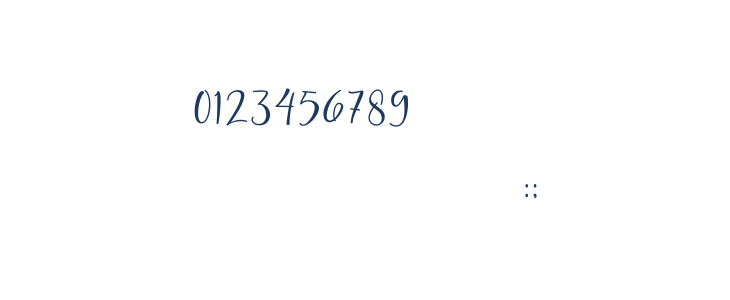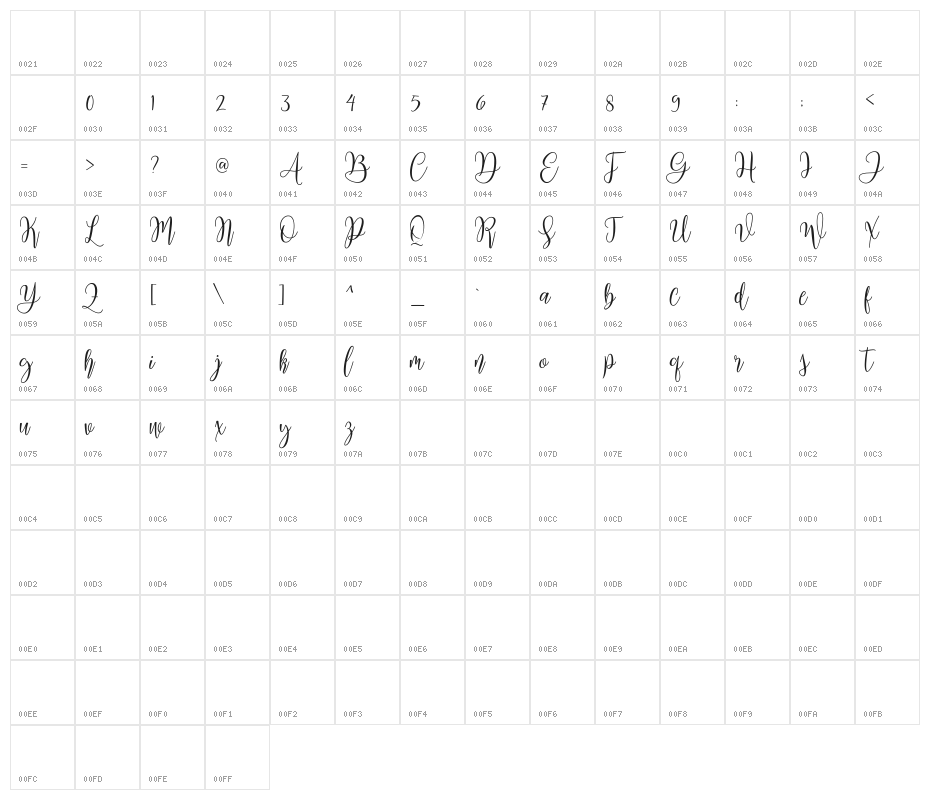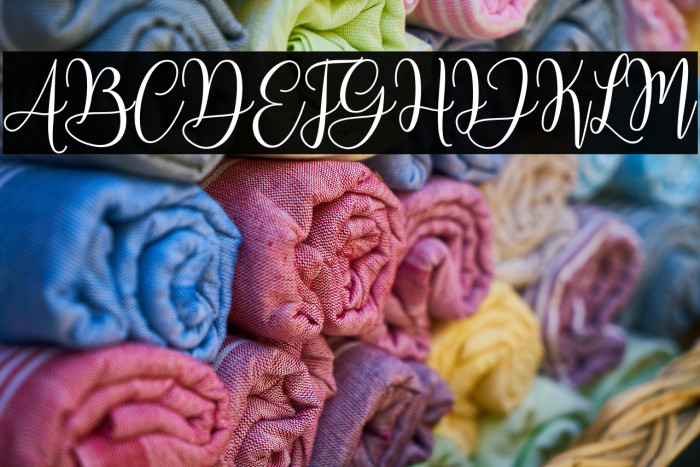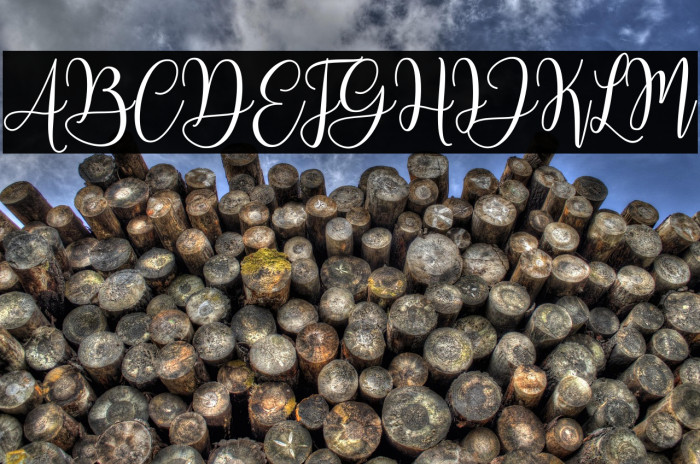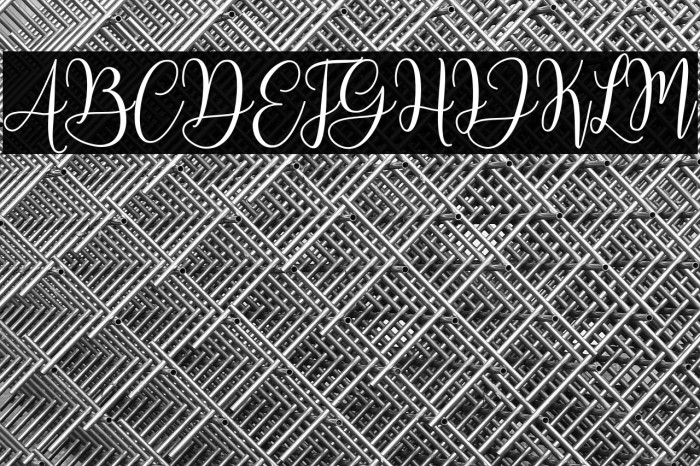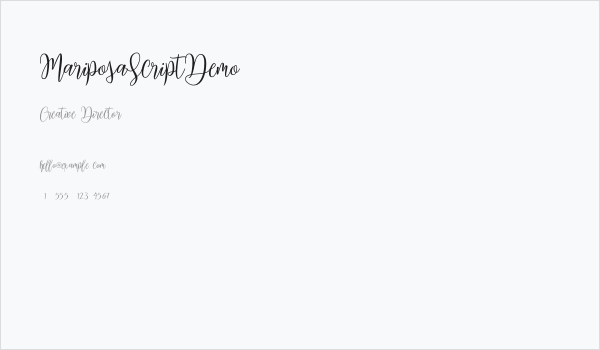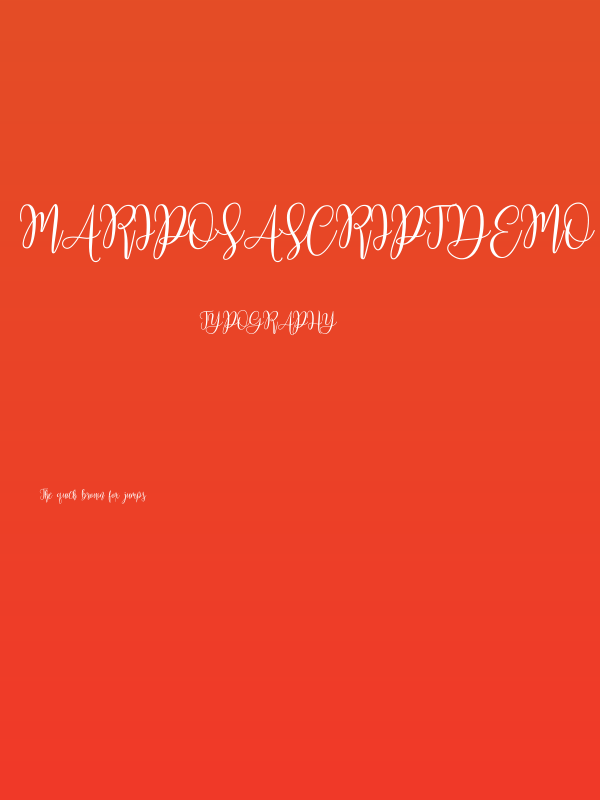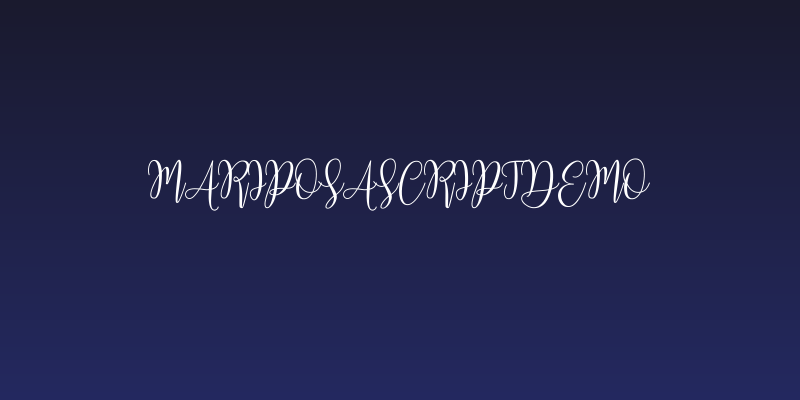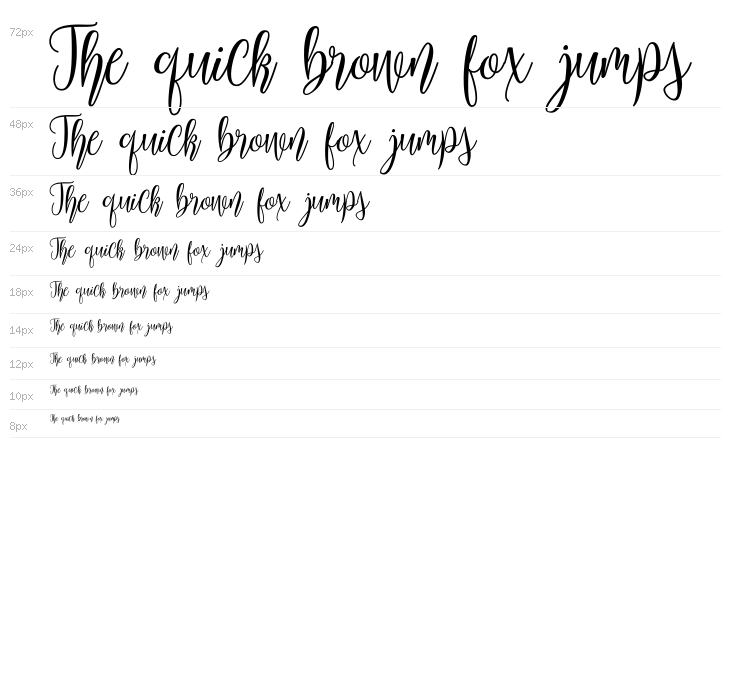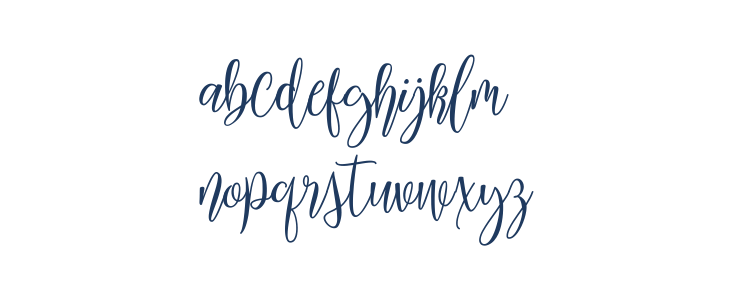
MariposaScriptDemo Font
MariposaScriptDemo Description
This elegant script font features flowing, interconnected letters that mimic the fluidity of natural handwriting. The uppercase letters are ornate and decorative, with sweeping curves and loops that add a sense of sophistication and grace. The lowercase letters maintain a consistent style, with smooth transitions and a slightly more restrained design, ensuring readability while retaining the font's artistic flair. The numerals are crafted with the same attention to detail, offering a cohesive look across all characters. The special characters, including symbols like $, ?, &, %, !, #, *, and =, are thoughtfully designed to match the overall aesthetic, making this font versatile for various applications.
Overall StyleElegant, Decorative
Use CaseLogos, Invitations, Greeting Cards
Proposed ProjectsIdeal for wedding invitations, greeting cards, branding projects, and elegant signage.